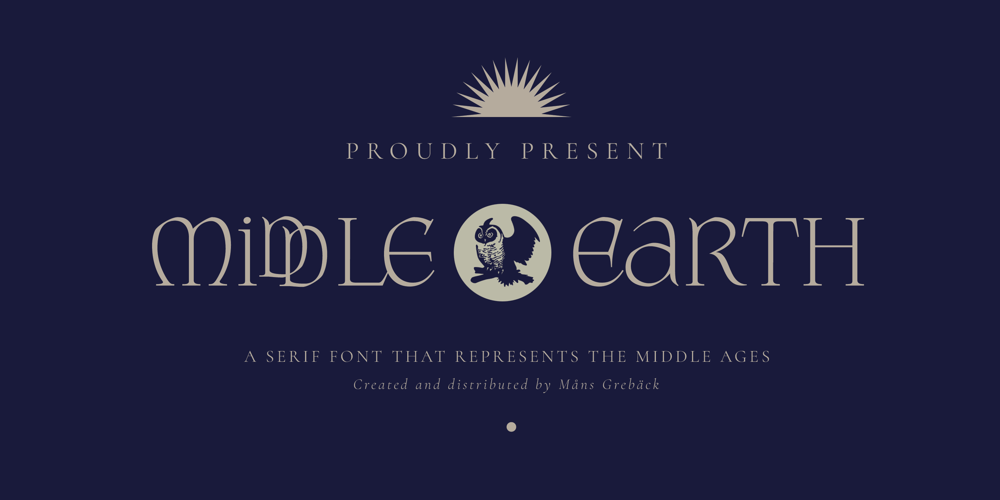
Middle Earth Font Family was designed by Måns Grebäck and published by Mans Greback. Middle Earth contains 10 styles and family package options. Middle Earth is a Medieval calligraphy serif font. With the historic charm of ancient manuscripts and the ethereal beauty of elven realms, Middle Earth typeface weaves tales of valor and legends. Its calligraphic allure is accentuated by rounded contours, reminiscent of Tolkien’s enchanted worlds. The unusually large lowercase, almost circular in its form, seems to echo the undulating hills of the Shire, while its Irish-inspired design lends a timeless elegance.